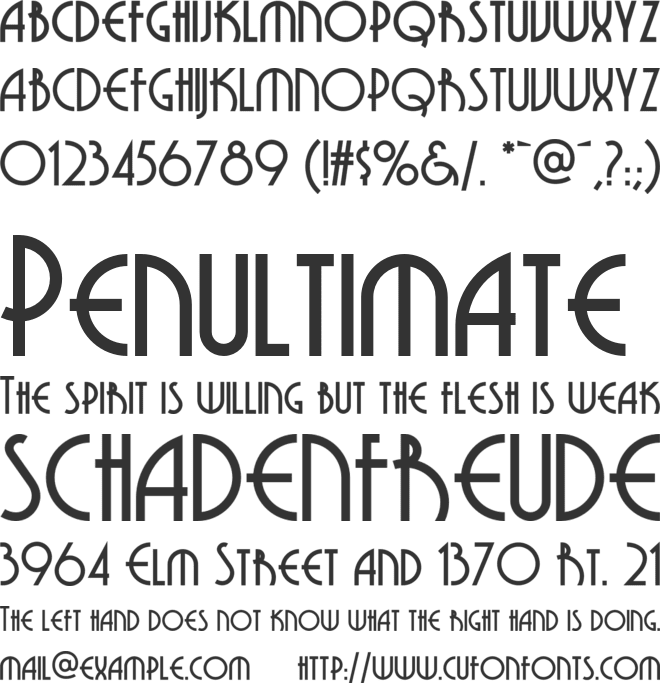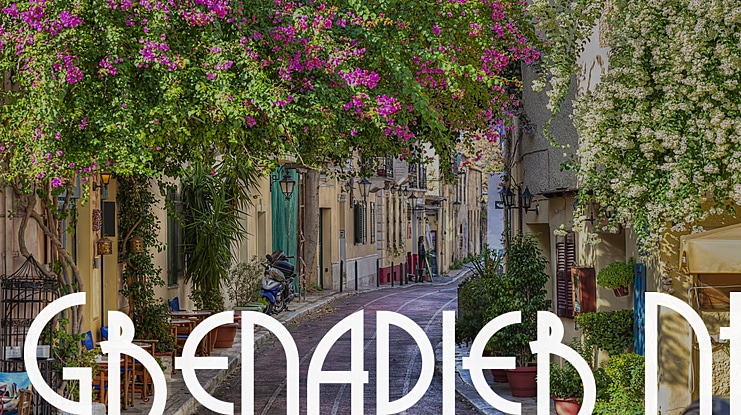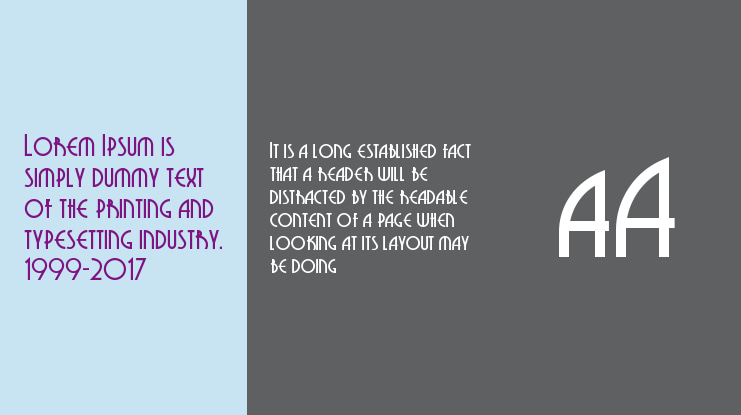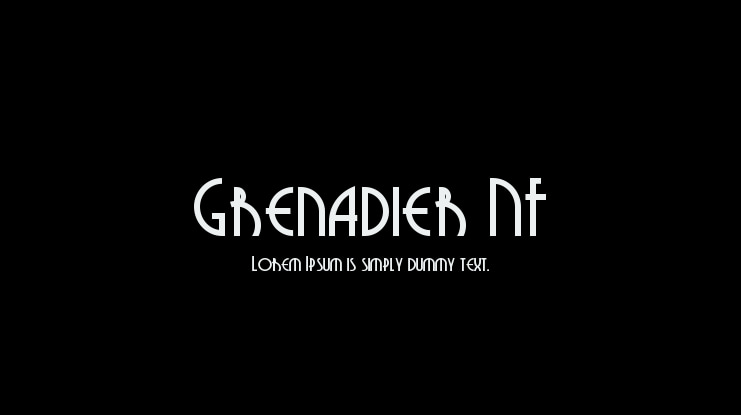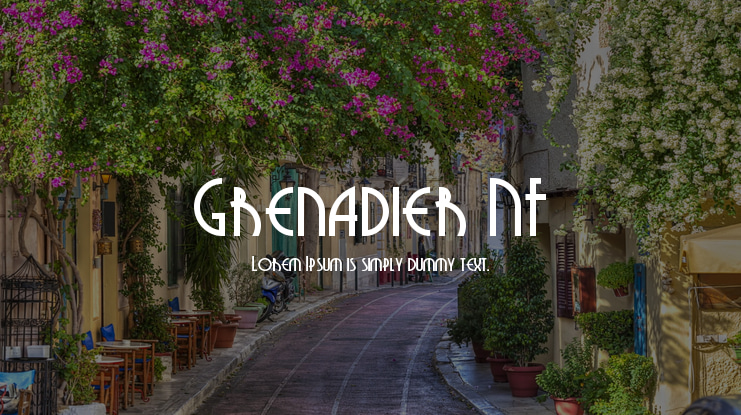
Another offering from Deco typemeister Samuel Welo. This font was originally called Modernistic (also the original name for my Metro Retro font). I donât know that the name that Iâve chosen â completely arbitrarily â for my version of the font is any better, but itâs no worse, either.